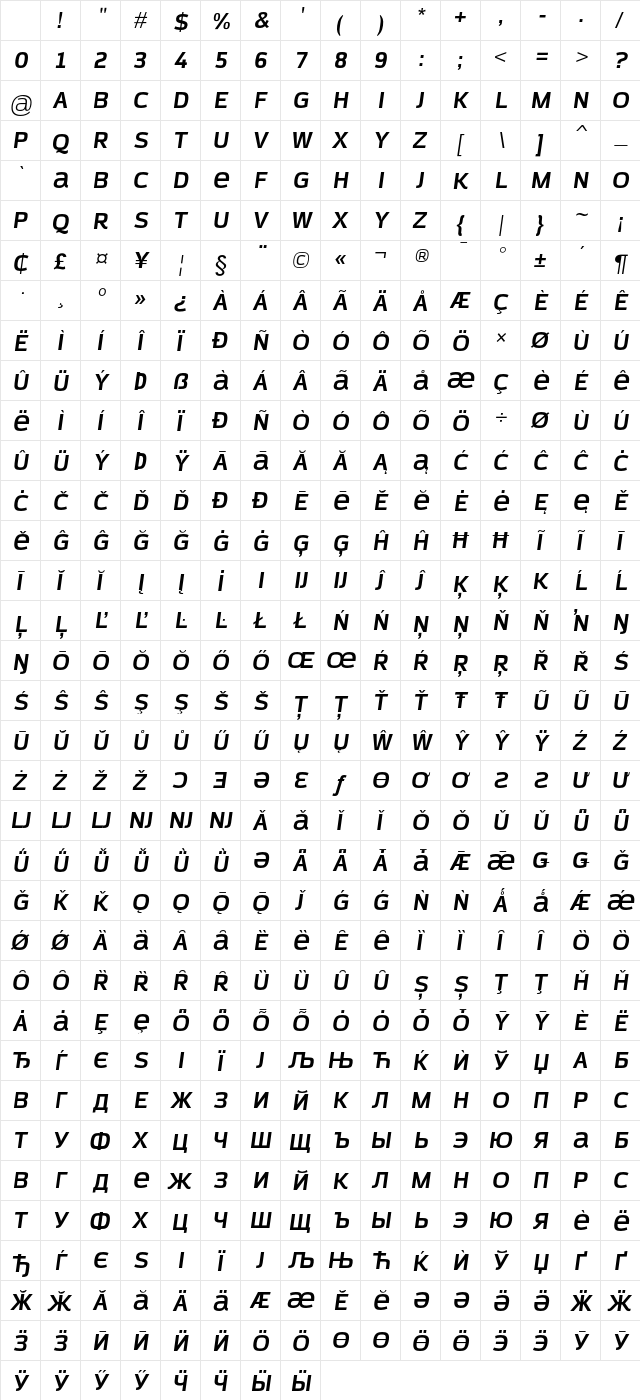
Complete Azoft Sans Bold Italic glyph index. Displaying only characters natively supported by Azoft Sans Bold Italic font.
Azoft Sans is a composed and adaptable typeface that performs quietly and consistently across a wide range of design contexts. The slanted form adds forward momentum and visual energy. Its bold stroke weight gives it real presence on the page.